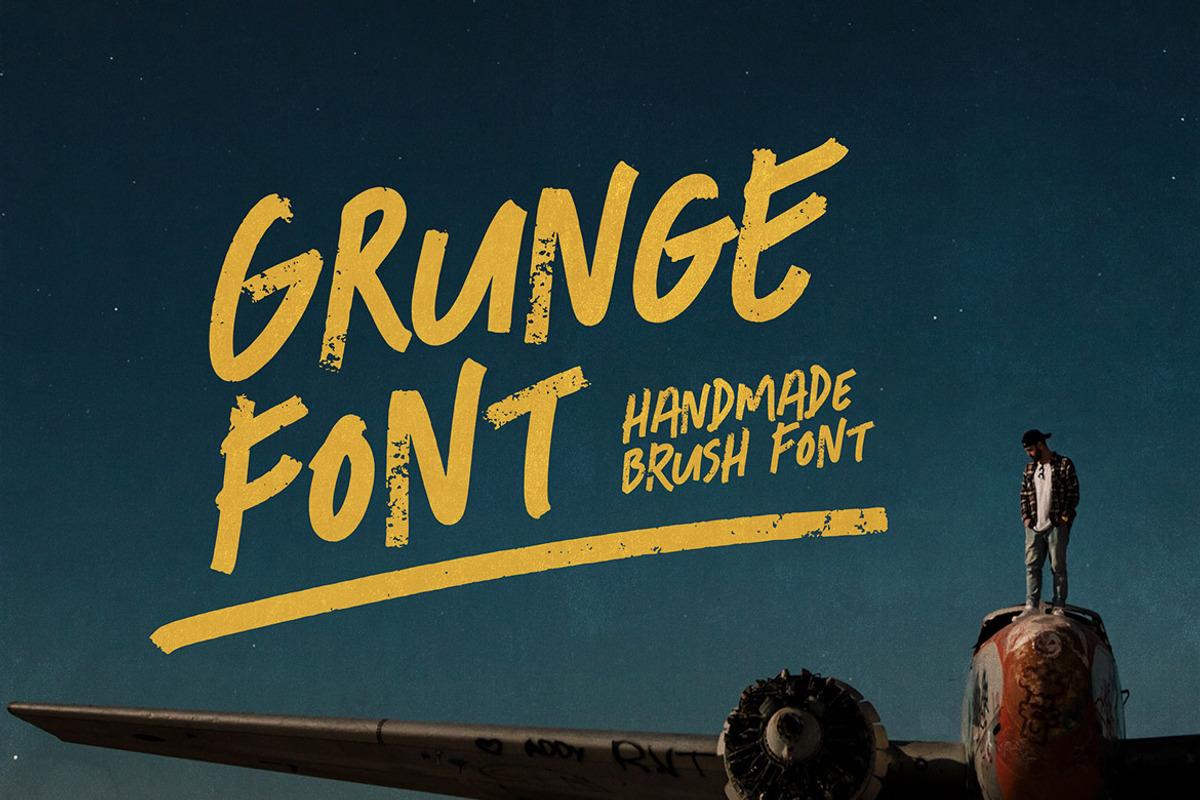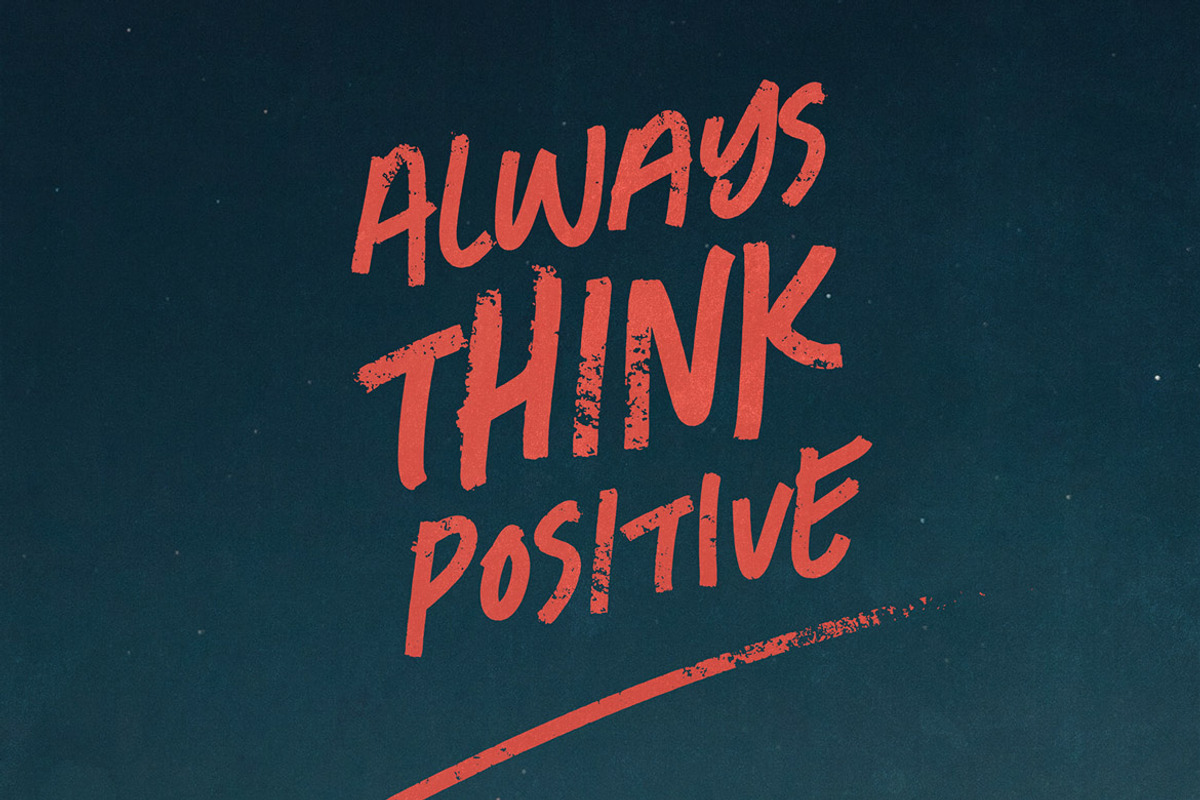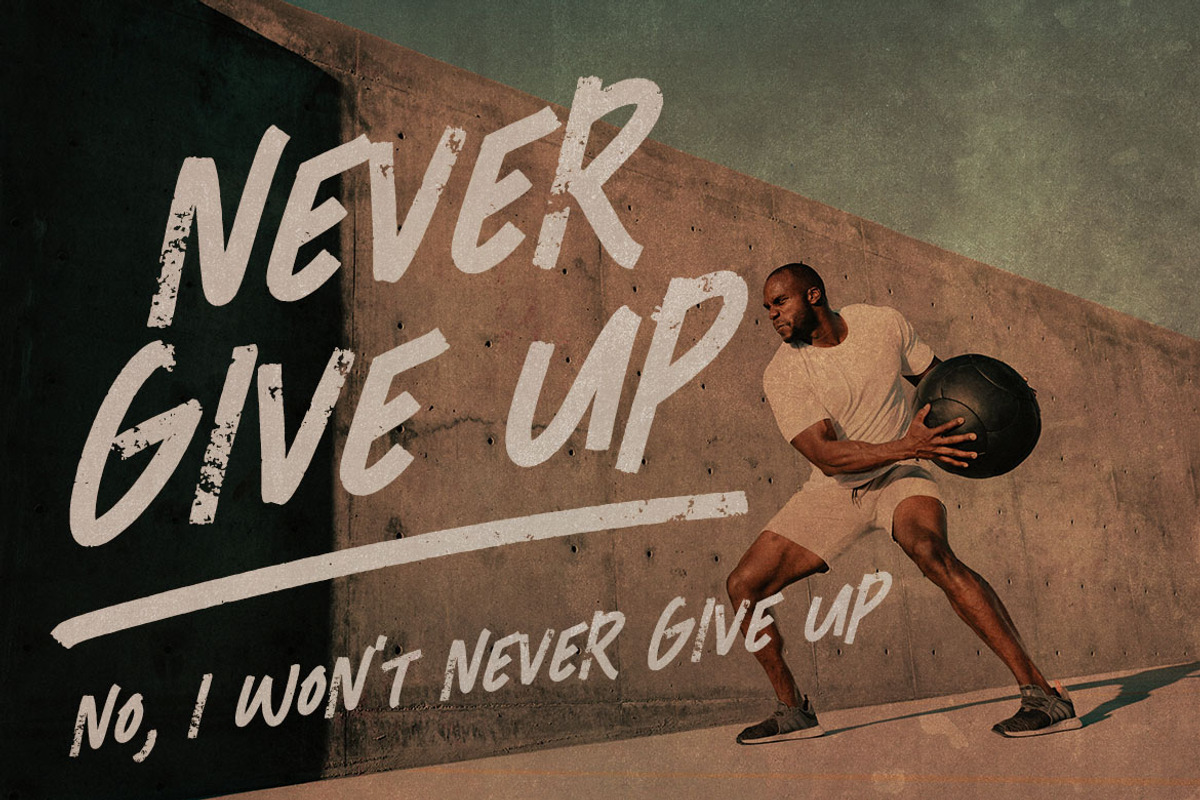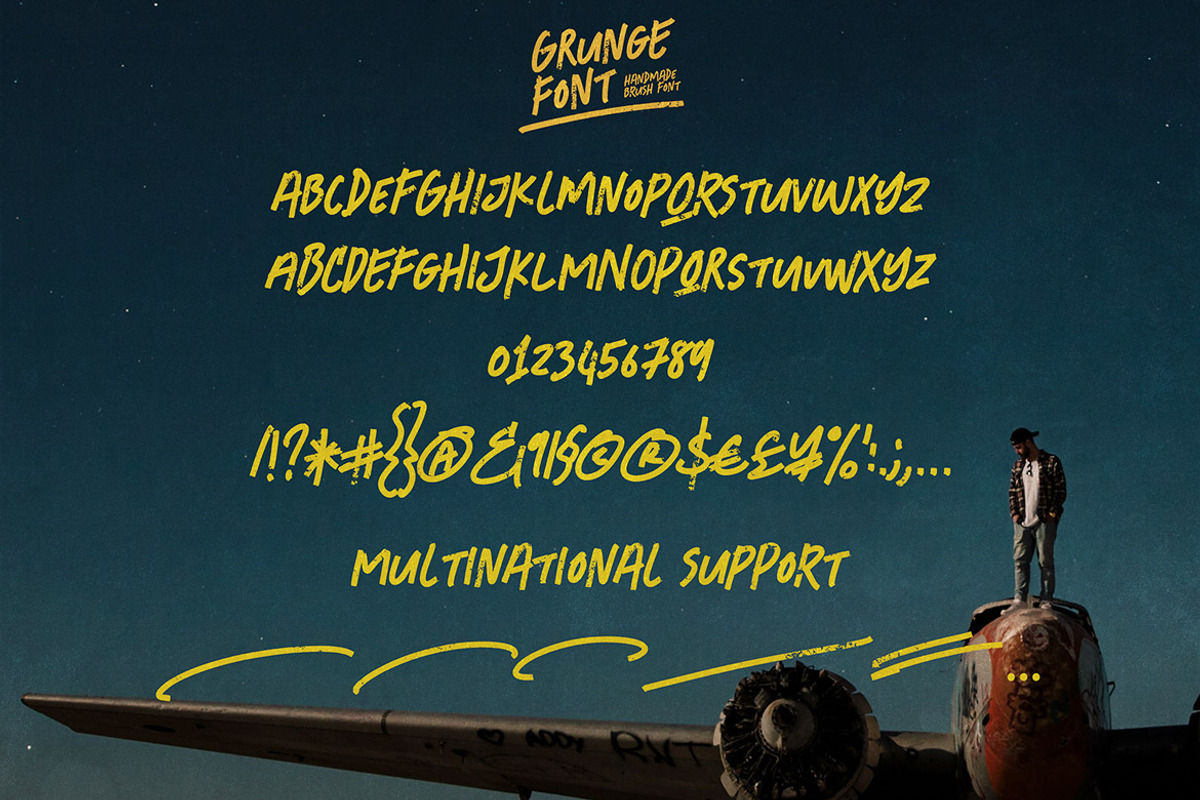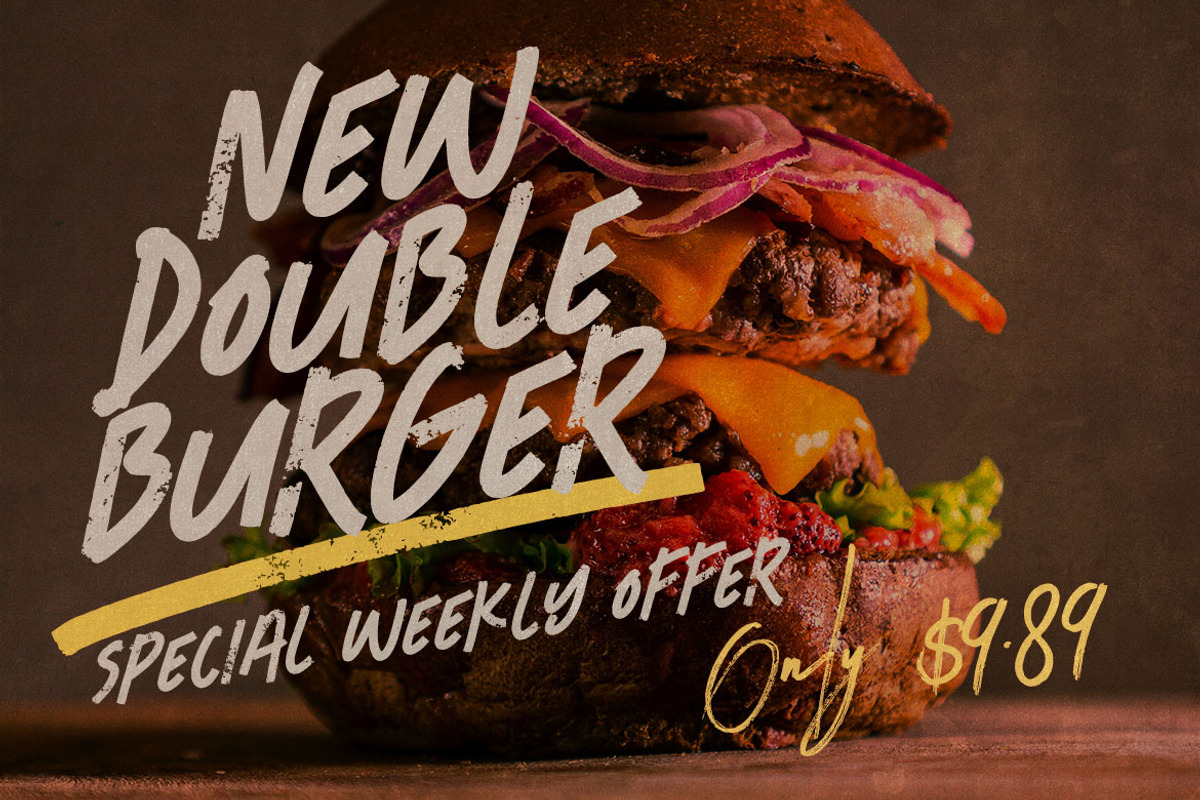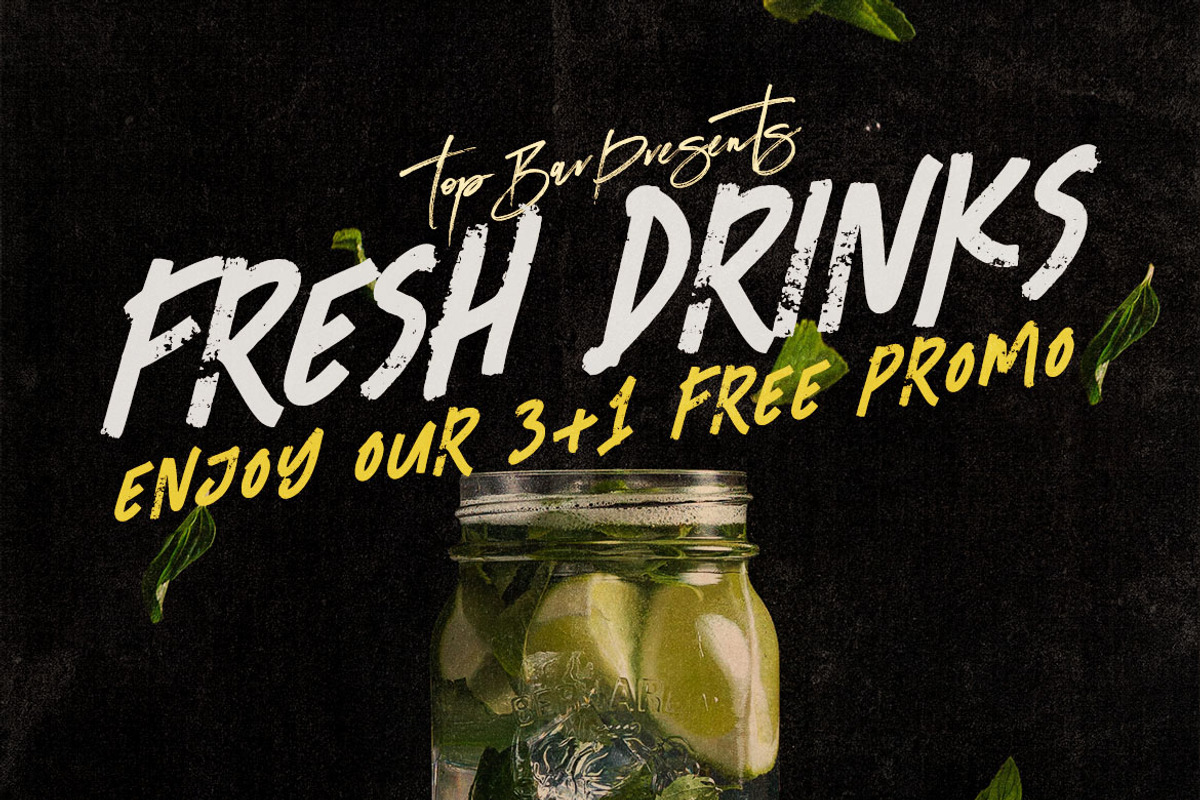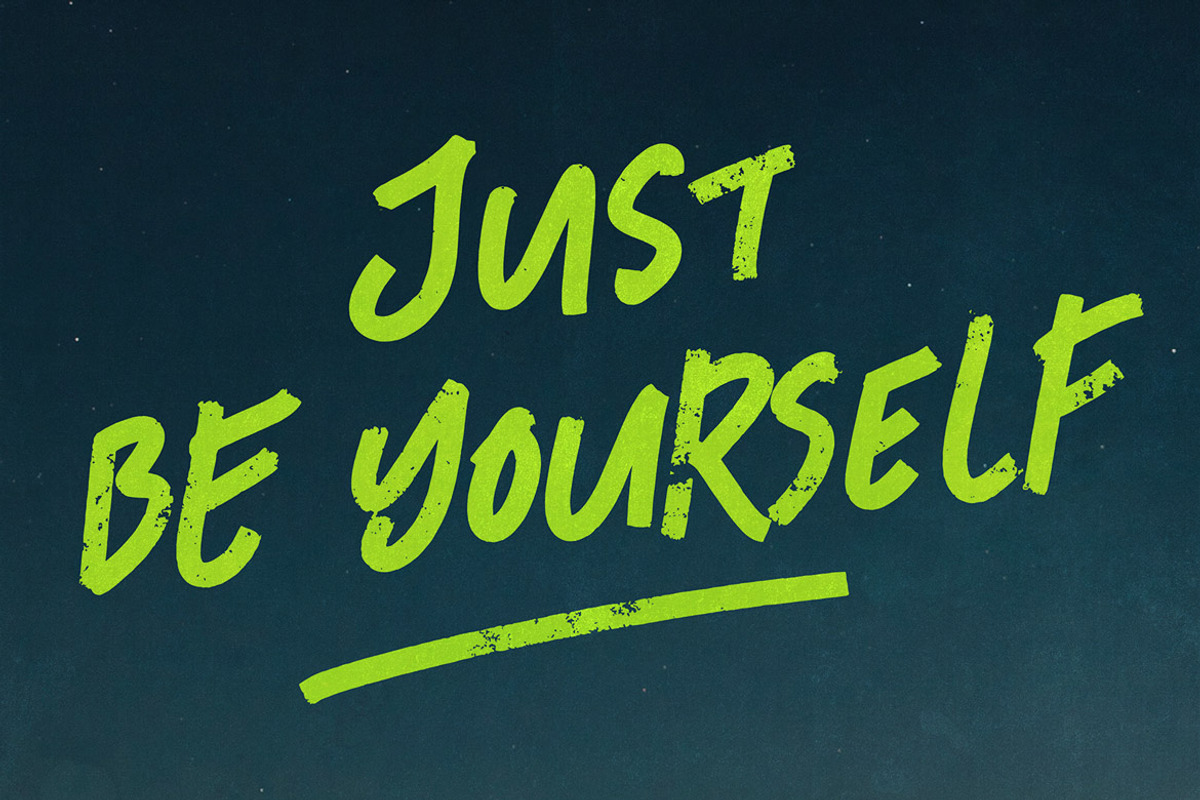
Grunge Font - Freestyle Display Font
Marker & grunge style sans display font for your new projects. Great for grunge or artistic projects!
- multilanguage support